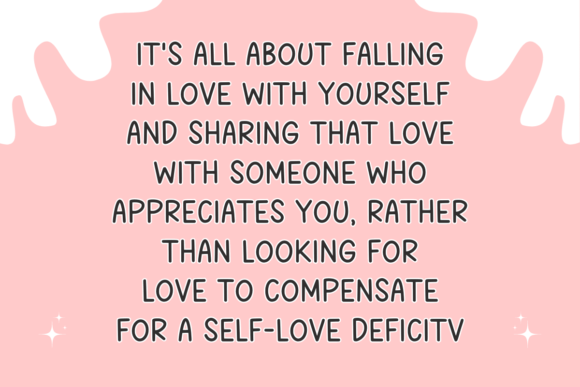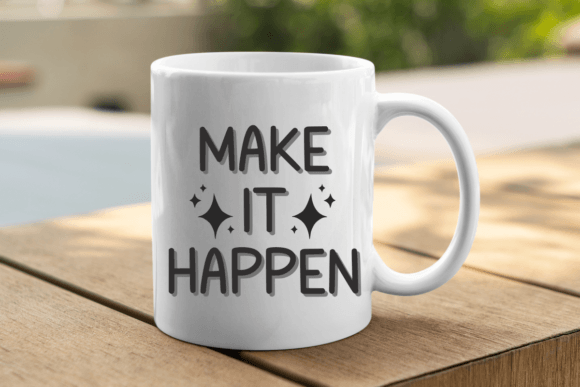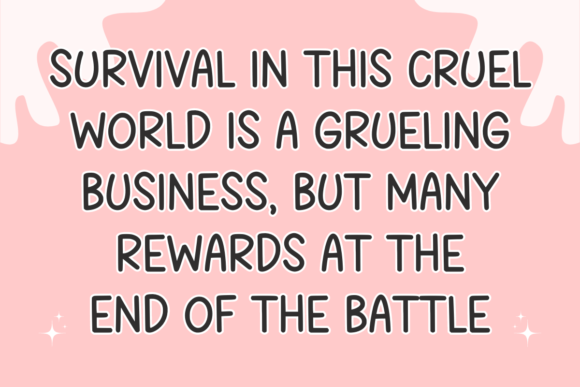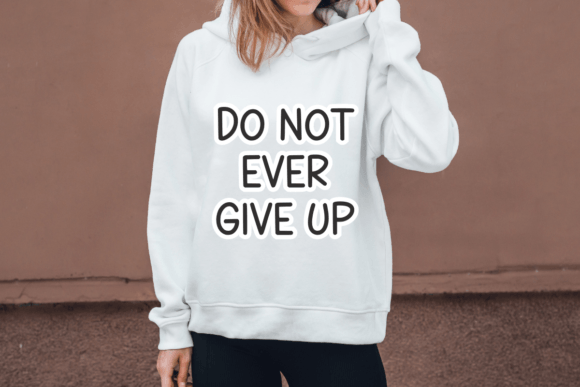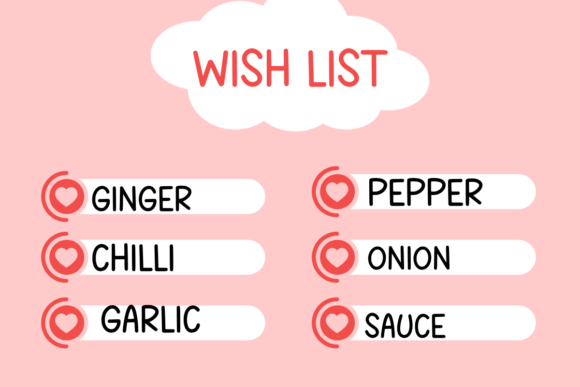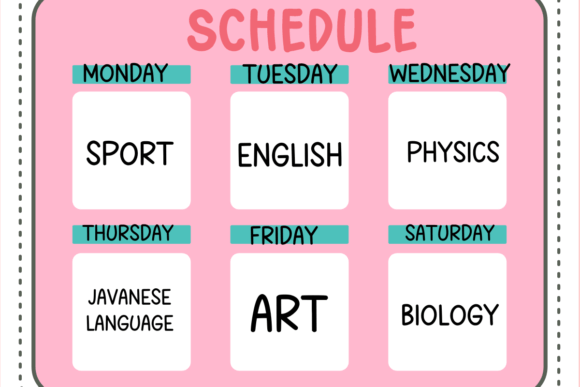
Hello Chicago Font: The Perfect Addition to Your Design Arsenal
Are you on the hunt for a font that exudes a sense of playfulness and femininity? Look no further than the Hello Chicago font! This adorable sans serif font is perfect for designers and crafters who want to add a touch of whimsy to their projects. In this article, we’ll dive into the world of Hello Chicago and explore its many uses, from journals and scrapbooks to stickers and women’s t-shirts.
What is Hello Chicago Font?
Hello Chicago is a cute, quirky, and feminine sans serif font that boasts natural, cute strokes. Its unique charm makes it an excellent choice for a wide range of design projects. The font’s playful and carefree vibe is sure to capture the attention of your audience and leave a lasting impression.
Characteristics of Hello Chicago Font
The Hello Chicago font has several characteristics that make it stand out from the crowd. Some of its notable features include:
- Cute and quirky design: The font’s playful and whimsical design makes it perfect for projects that require a touch of personality.
- Feminine touch: The font’s feminine strokes and curves give it a distinctly girly feel that’s perfect for designs targeting a female audience.
- Natural and effortless look: The font’s natural, effortless look makes it perfect for designs that require a laid-back and casual vibe.
Uses of Hello Chicago Font
The Hello Chicago font is incredibly versatile and can be used for a wide range of design projects, including:
- Journals and planners: Add a touch of personality to your journals and planners with the Hello Chicago font.
- Scrapbooks: Create beautiful and unique scrapbooks with the Hello Chicago font.
- Stickers: Design adorable stickers with the Hello Chicago font that are perfect for decorating journals, laptops, and more.
- Women’s t-shirts: Create stylish and feminine t-shirts with the Hello Chicago font.
- Grocery lists and labels: Add a touch of whimsy to your grocery lists and labels with the Hello Chicago font.
- Canva designs: Use the Hello Chicago font to create stunning Canva designs, from social media graphics to presentations.
- Interior KDPs: Create beautiful and unique interior designs for your Kindle Direct Publishing (KDP) books with the Hello Chicago font.
- Quotes and posters: Design inspiring quotes and posters with the Hello Chicago font that are perfect for decorating your home or office.
Why Choose Hello Chicago Font?
So, why should you choose the Hello Chicago font for your design projects? Here are just a few reasons:
- Unique and eye-catching: The Hello Chicago font is sure to grab attention and leave a lasting impression.
- Feminine and playful: The font’s feminine and playful vibe makes it perfect for designs targeting a female audience.
- Versatile: The Hello Chicago font can be used for a wide range of design projects, from journals and scrapbooks to stickers and t-shirts.
- Easy to read: The font’s clear and easy-to-read design makes it perfect for body text and headings.
In conclusion, the Hello Chicago font is a must-have for designers and crafters who want to add a touch of whimsy and femininity to their projects. Its unique and eye-catching design, versatile uses, and easy-to-read style make it the perfect addition to your design arsenal. Whether you’re creating journals, scrapbooks, stickers, or women’s t-shirts, the Hello Chicago font is sure to bring a smile to your audience’s face.